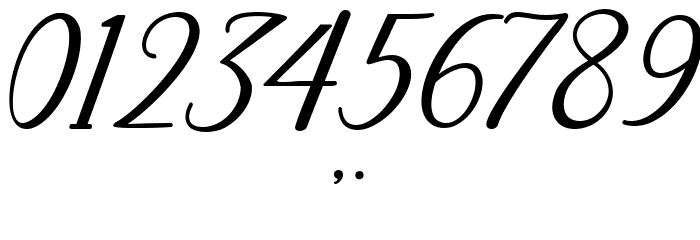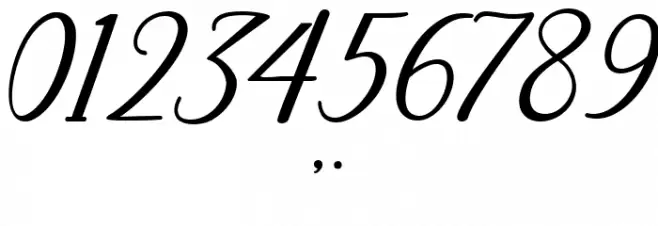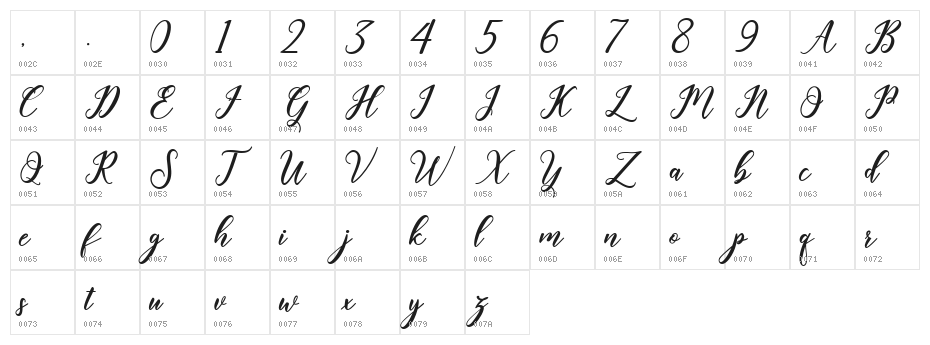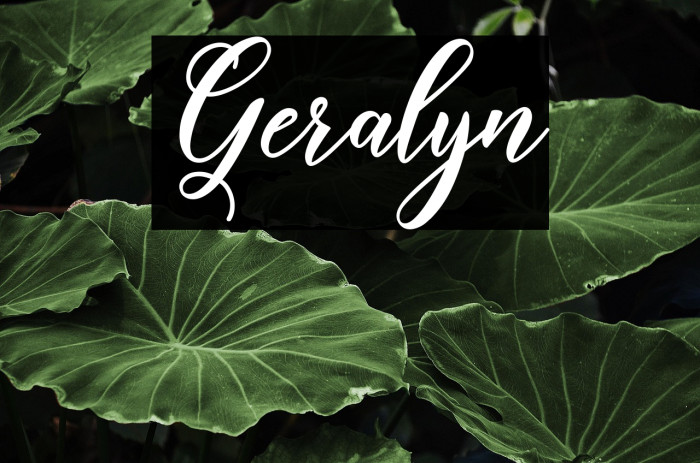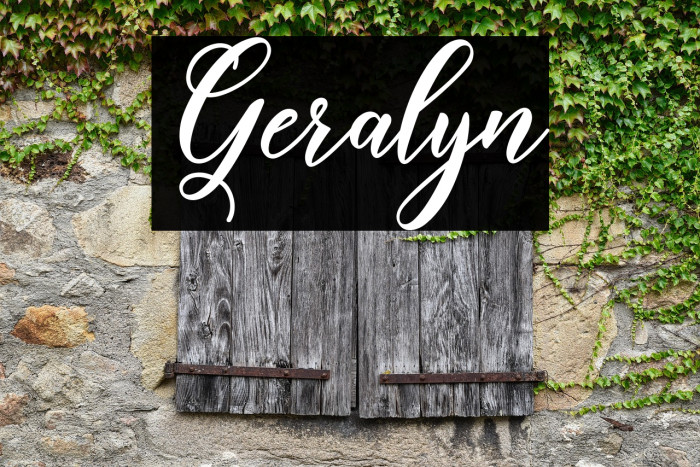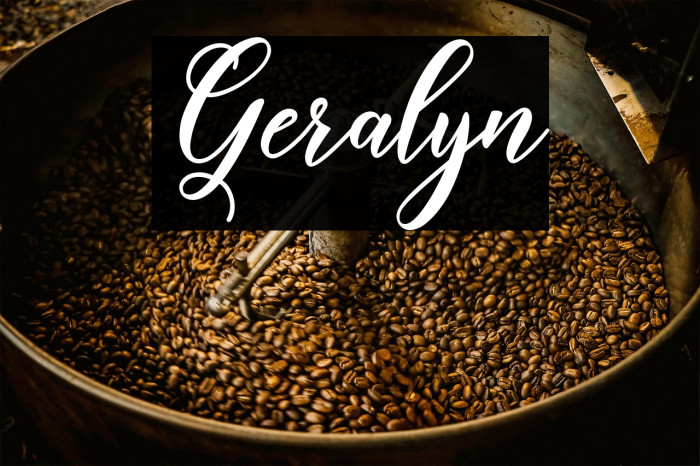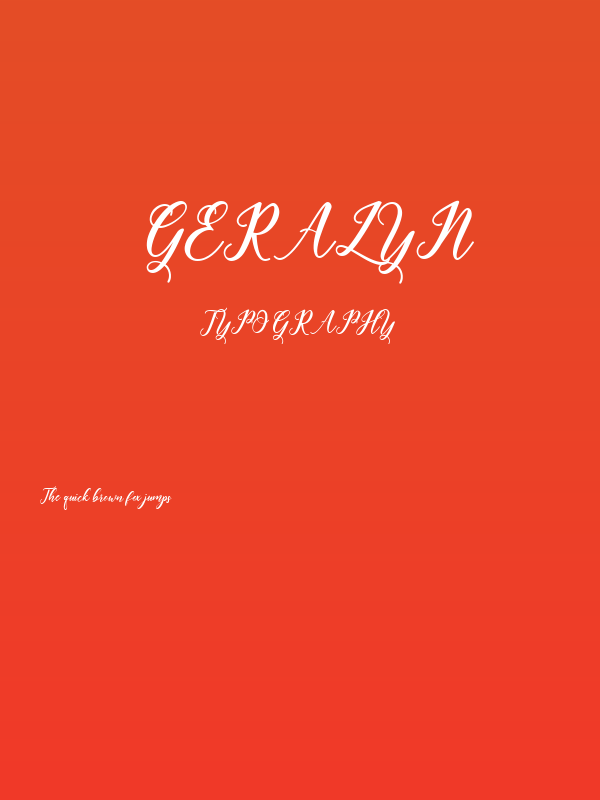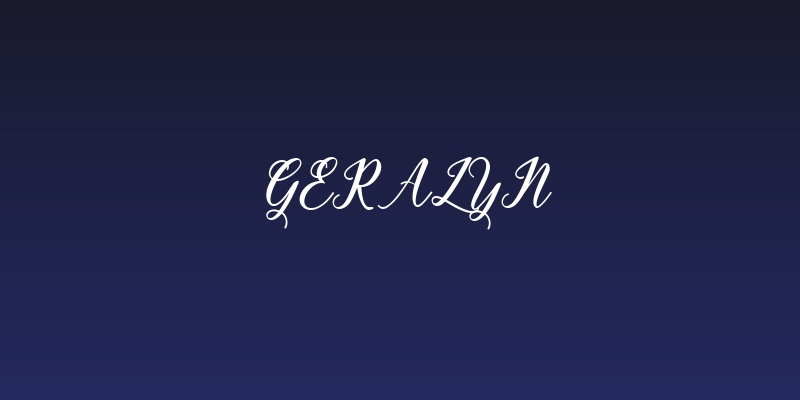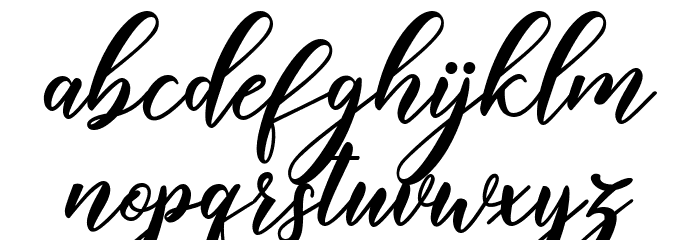
Geralyn Font
Geralyn Description
This elegant script font features a flowing, cursive style with high contrast between thick and thin strokes. The uppercase letters are graceful and elongated, while the lowercase letters maintain a smooth, connected appearance, enhancing the font's fluidity. The numerals are stylish and consistent with the overall script aesthetic, making them suitable for decorative purposes. The special characters blend seamlessly with the alphabet, ensuring a cohesive look across different uses. This font exudes sophistication and charm, making it ideal for formal invitations, branding, and other projects that require a touch of elegance.
| Use Case | Headlines, Invitations, Branding |
| Proposed Projects | Ideal for wedding invitations, luxury branding, greeting cards, and elegant packaging. |